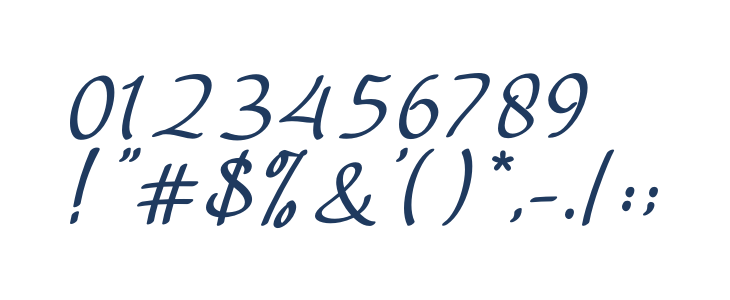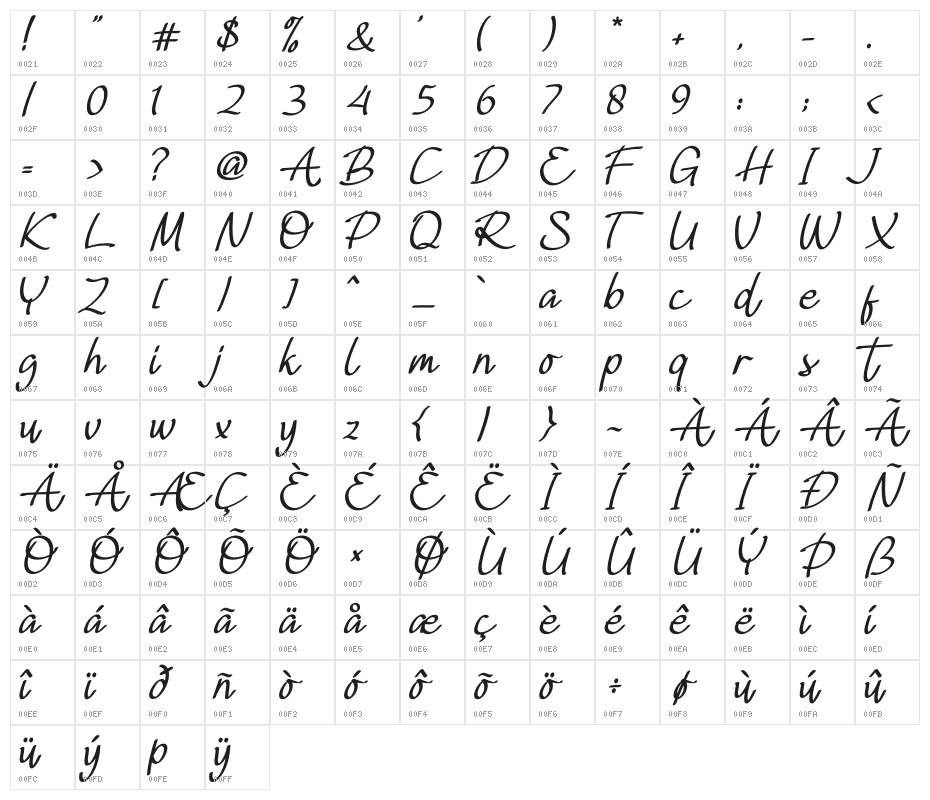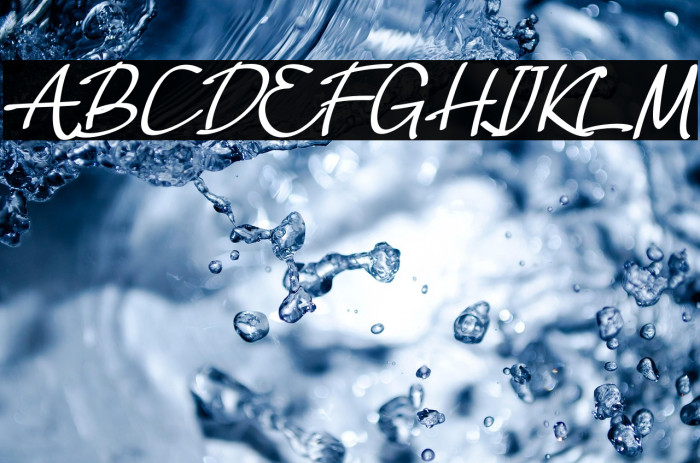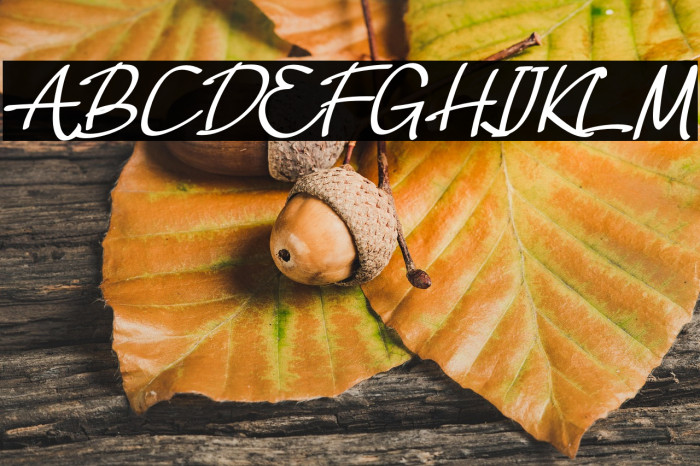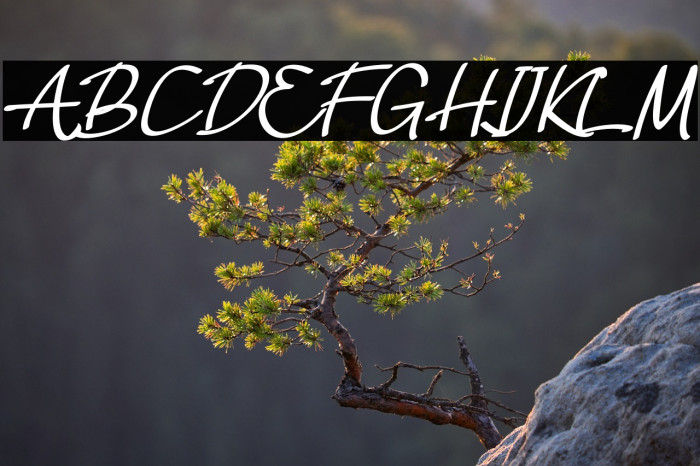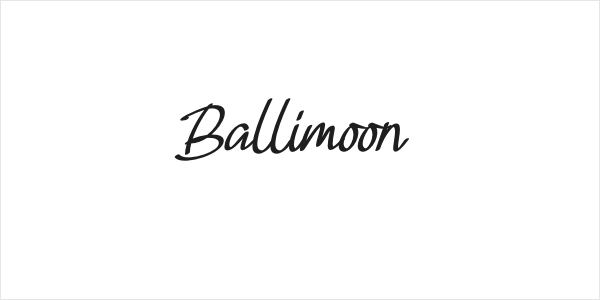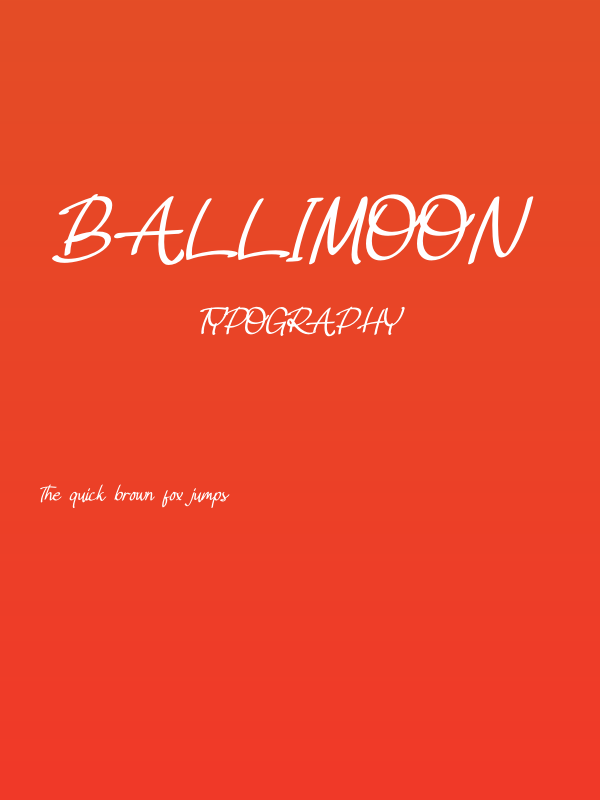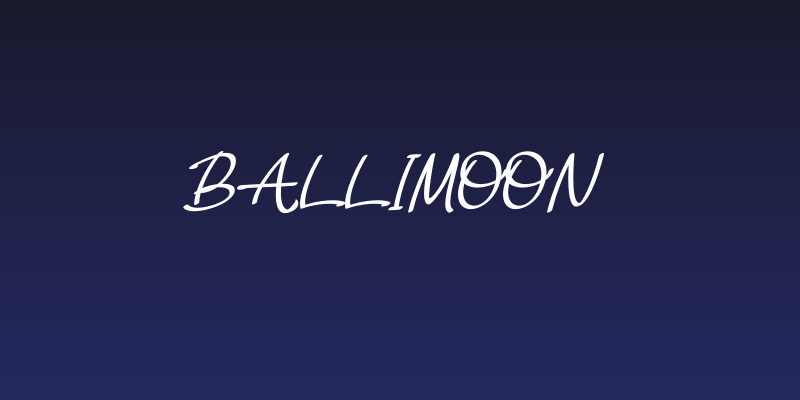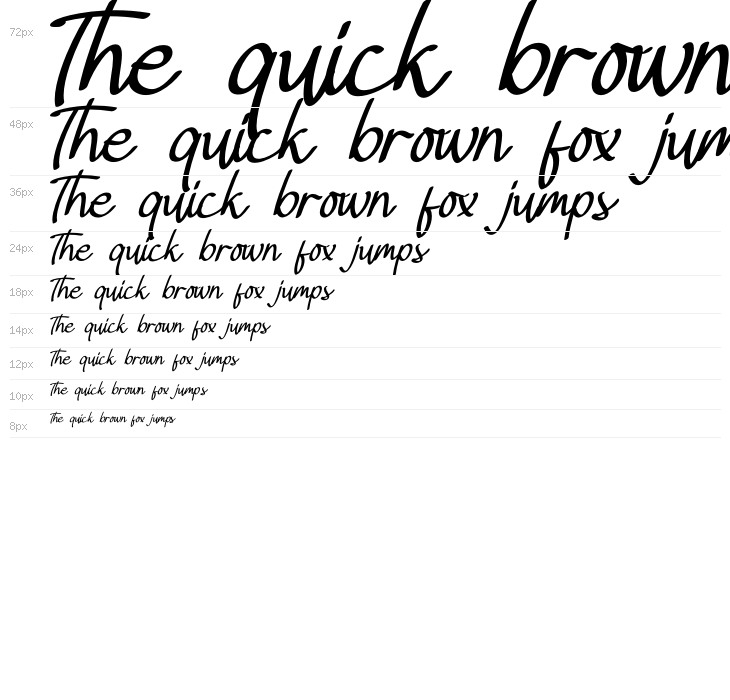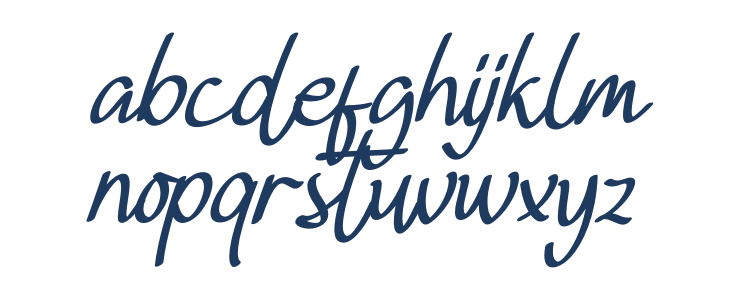
Ballimoon Font
Ballimoon Description
This font exudes a lively and dynamic character with its fluid, cursive style. The letters are interconnected, giving it a handwritten appearance that is both elegant and casual. The uppercase letters are slightly more structured, while the lowercase letters flow more freely, adding to its charm. The numbers and special characters maintain the same flowing style, ensuring consistency throughout. This font's playful yet sophisticated look makes it versatile for various design needs.
| Use Case | Logos, Invitations, Personal branding |
| Proposed Projects | Ideal for wedding invitations, greeting cards, personal branding, and creative projects that require a personal touch. |